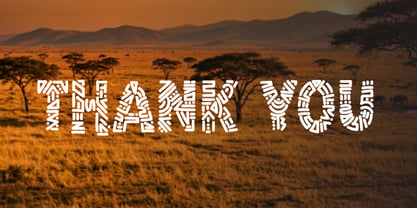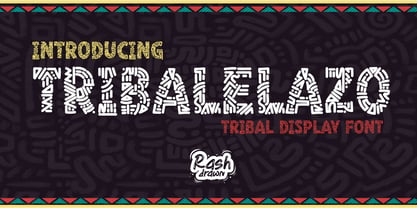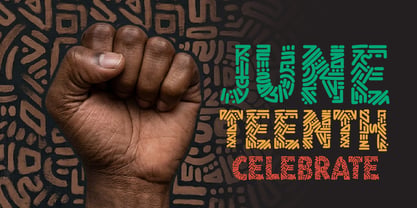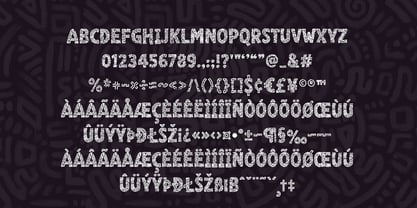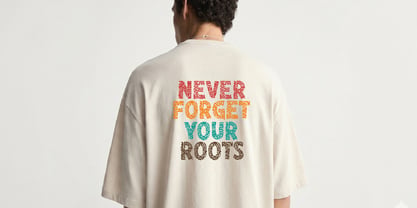
Tribalelazo
by Rashdrawn
The Tribalelazo Font Family was designed by Dadan Wildan and published by Rashdrawn. Tribalelazo contains 1 styles. More about this family
Inject a soulful, cultural energy into your creative projects with Tribalelazo!
Tribalelazo is a decorative display font meticulously crafted to embody the spirit of traditional ethnic patterns and tribal artistry. Each letter features intricate geometric linework that mimics authentic handmade engravings, making it a standout choice for designs that require a bold and philosophical visual identity.
This font is highly versatile and perfect for:
• Apparel & Streetwear: Create powerful t-shirt designs like the "Never Forget Your Roots" concept.
• Cultural Celebrations: Ideal for event posters such as "Juneteenth" or music festivals.
• Unique Branding: Give your logos an artisanal, exotic touch that stands out from the crowd.
• Social Media & Editorial: Perfect for eye-catching headlines and artistic quotes.